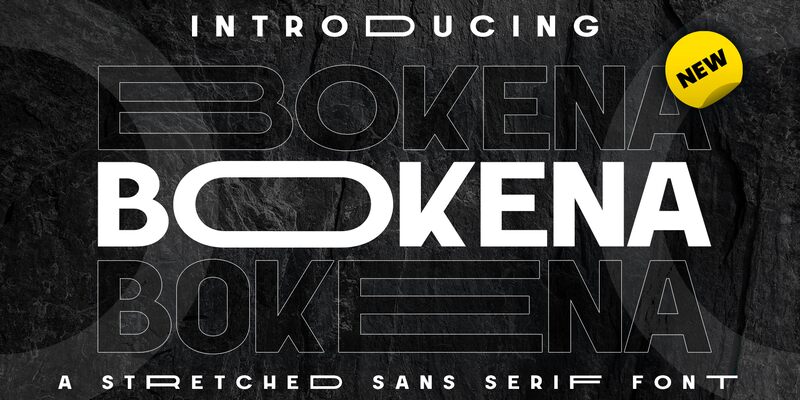
Bokena font by Ibra Creative Studio presents a classic sans-serif font with expanded elegant proportions. In addition to the main characters, the typeface features beautiful alternates that turn each design into an exceptional setting. With precise cut details and geometric forms, its shapes are clean and fit for exceptional combinations.
Bokena is a free sans-serif font that’s modern yet minimalistic with truly corporate potential. Use it for branding projects and identities, whether it’s business cards or office stationery, as well as digital designs like application designs and online UI/UX use. Don’t miss out on adding this clear text style to typography art.